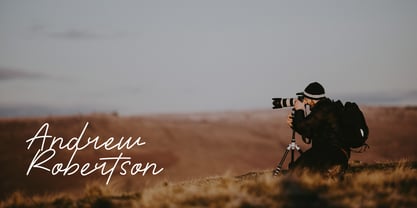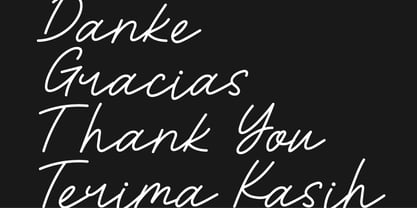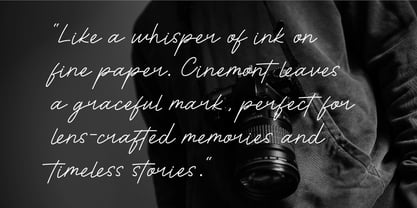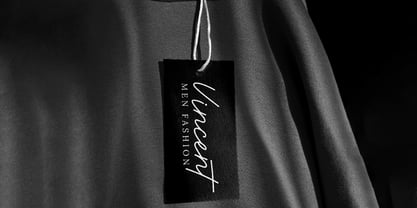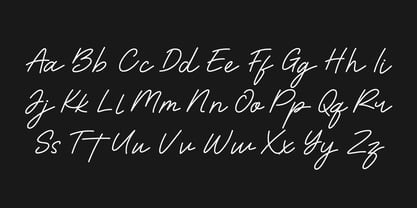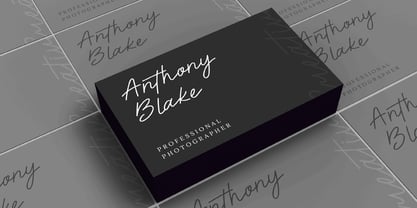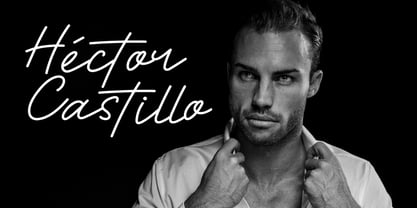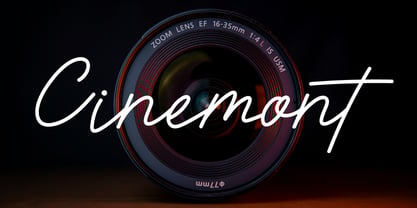
Cinemont
by Habitype
The Cinemont Font Family was designed by Fahrul Saputra and published by Habitype. Cinemont contains 1 styles. More about this family
Cinemont Signature is a striking handwriting typeface engineered with a distinct masculine edge. Designed to function as a commanding personal mark, it delivers the authenticity of rapid, fluid penmanship while maintaining strict legibility. The sweeping, monoline strokes and confident execution balance raw character with refined elegance, creating a script that is both personal and highly professional.
Built for impactful branding, Cinemont Signature mimics the natural, fast-paced rhythm of a genuine signature. The unyielding, even-weight strokes ensure the typeface stands out clearly across diverse applications without losing its hand-crafted authenticity.